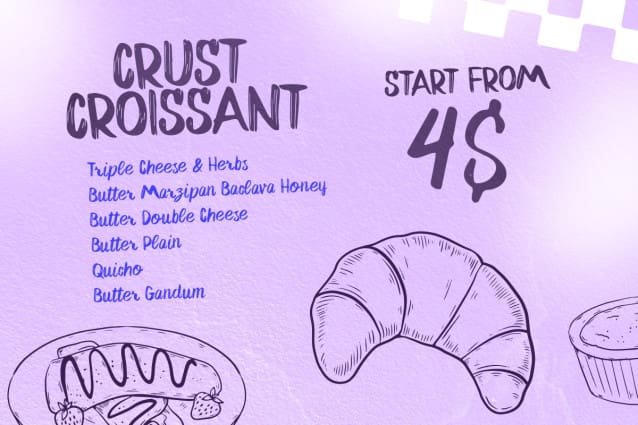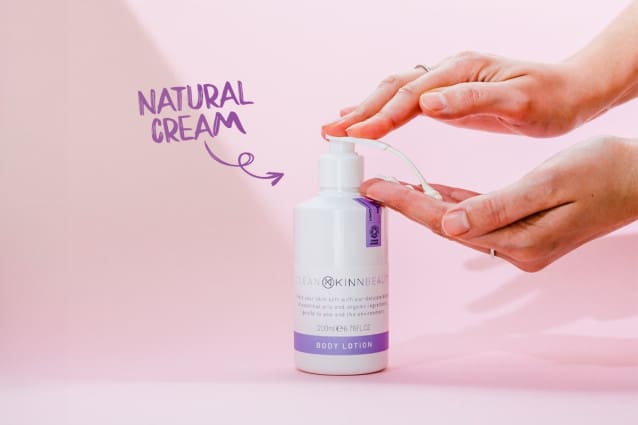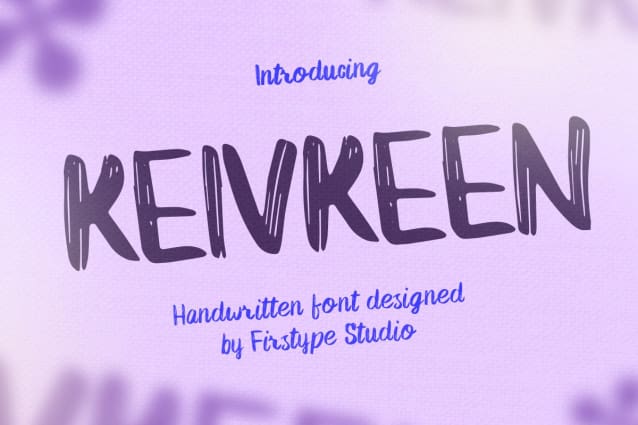
Kievkeen Brush Font
Kievkeen Brush Font is a modern handwritten font that combines bold strokes with a free-spirited charm. Designed to capture a casual yet confident style, this typeface brings personality and energy to every design. Whether for headlines, menus, or creative personal projects, Kievkeen Brush adds a touch of authenticity and warmth to your work.
Explore the KEIVREEN Free Version and get a taste of its unique, handcrafted appeal without any cost. Ideal for personal use, this version allows you to infuse your designs—such as posters, invitations, and digital creations—with vibrancy and character.